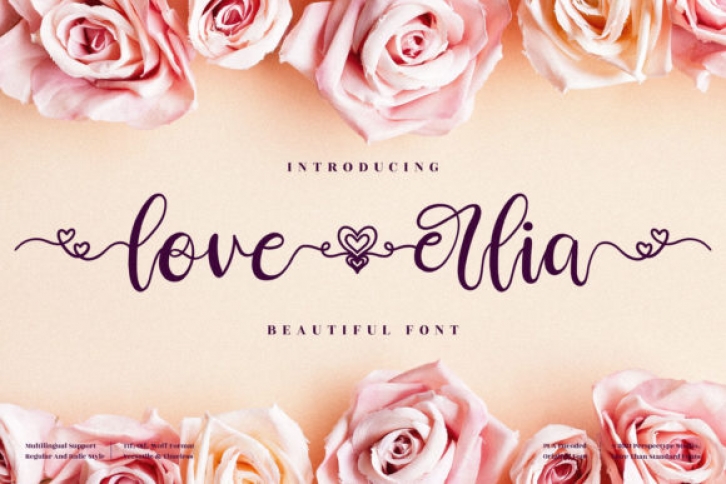
Love Erlia is a beautiful script font with a love and nature theme. Simple and easy to use, this font will be very beautiful if you mix it with your various craft designs.